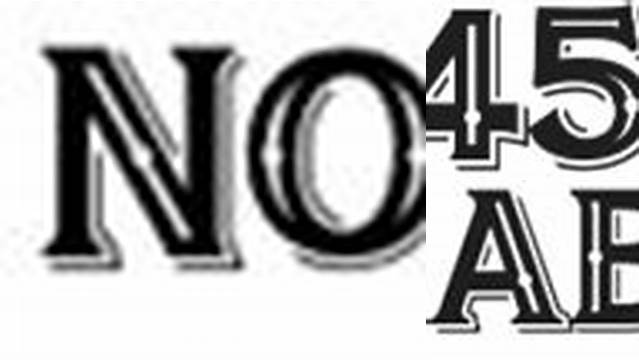
Are you looking to add a unique and eye-catching touch to your design projects? Look no further! The Truens Two Dot Inline Shadow font is a fantastic choice for designers and creatives who want to make a statement. This font, with its distinctive inline and shadow effects, brings a modern and playful feel to any text. In this comprehensive guide, we'll delve into everything you need to know about this font, including its features, best uses, and, most importantly, how to download it for free.
What is the Truens Two Dot Inline Shadow Font?
The Truens Two Dot Inline Shadow font is a display typeface characterized by its unique design elements. The inline style gives the letters a hollowed-out appearance, while the shadow effect adds depth and dimension. This combination results in a visually appealing font that stands out from more traditional typefaces. This font is perfect for headlines, posters, logos, and other design elements where you want to grab the viewer's attention. Its playful yet modern aesthetic makes it versatile for a variety of projects, from children's books to tech-related designs.
The font's design incorporates two dots within each character, enhancing its playful and distinctive look. The inline shadow effect creates a subtle 3D appearance, making the text pop off the page or screen. The Truens Two Dot Inline Shadow font is more than just a typeface; it's a visual asset that can elevate your designs and help you communicate your message effectively. Its unique characteristics make it a valuable addition to any designer's toolkit. Whether you're working on a branding project, creating marketing materials, or designing a website, this font can bring a fresh and modern twist to your work. The attention to detail in its design ensures that it remains legible and impactful, even in various sizes and contexts. By understanding its unique qualities, you can leverage the Truens Two Dot Inline Shadow font to create stunning visuals that leave a lasting impression.
Key Features of Truens Two Dot Inline Shadow Font
Before we dive into the download process, let's highlight some of the key features that make the Truens Two Dot Inline Shadow font so appealing:
- Inline Style: The hollowed-out center of each letter creates a modern and clean look.
- Shadow Effect: Adds depth and dimension, making the text stand out.
- Two Dot Design: The incorporation of two dots within each character enhances its playful and distinctive appearance.
- Versatility: Suitable for various design projects, including headlines, logos, and posters.
- Readability: Despite its unique design, the font remains legible in various sizes.
These features combine to make the Truens Two Dot Inline Shadow font a compelling choice for designers looking to add a touch of creativity to their work. The font's distinctive style ensures that it will catch the eye, while its readability means that it can be used effectively in a range of contexts. From bold headlines to subtle design accents, this font offers a versatile solution for enhancing your visual communication.
Best Uses for Truens Two Dot Inline Shadow Font
So, where can you best utilize the Truens Two Dot Inline Shadow font? Its unique aesthetic makes it suitable for a variety of design applications. Let's explore some of the best uses for this font:
- Headlines and Titles: The font's bold and eye-catching design makes it perfect for headlines and titles, grabbing the reader's attention and setting the tone for your content.
- Logos and Branding: If you're looking for a font that will make your brand stand out, the Truens Two Dot Inline Shadow font is an excellent choice. Its distinctive style can help create a memorable and recognizable brand identity.
- Posters and Flyers: This font is ideal for creating visually striking posters and flyers. The shadow effect and inline style make the text pop, ensuring your message is seen and remembered.
- Website Design: Use this font for headings and key text elements on your website to add a modern and playful touch to your online presence.
- Social Media Graphics: Enhance your social media posts with the Truens Two Dot Inline Shadow font. Its unique look will help your content stand out in a crowded feed.
The Truens Two Dot Inline Shadow font is particularly well-suited for projects that require a modern, playful, and attention-grabbing design. Its versatility allows it to be used in both print and digital media, making it a valuable asset for any designer. Whether you're creating a logo for a tech startup, designing a poster for a children's event, or crafting social media graphics, this font can help you achieve your creative vision. Its ability to convey both a sense of fun and a sense of modernity makes it a go-to choice for projects that need to make a statement. By leveraging its unique characteristics, you can create visuals that are both engaging and memorable.